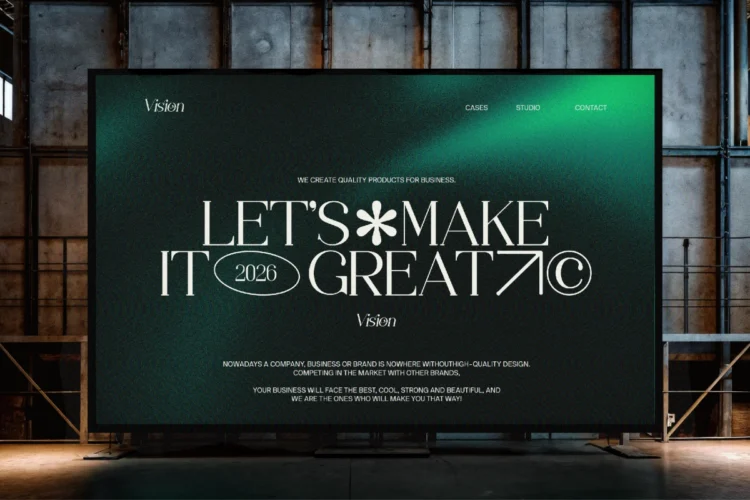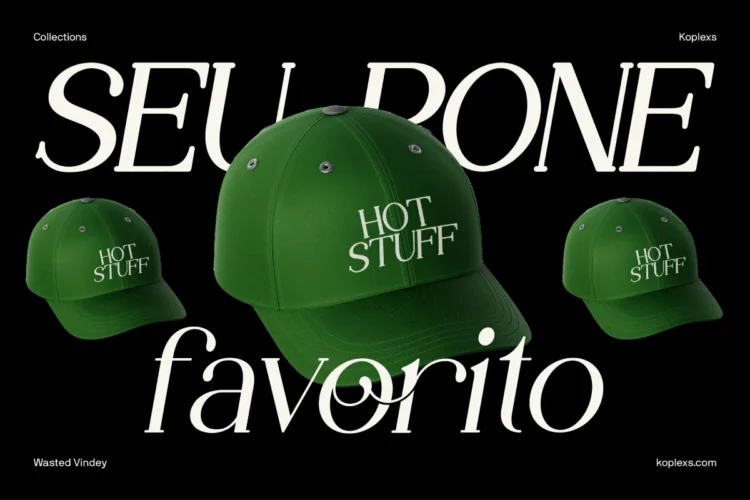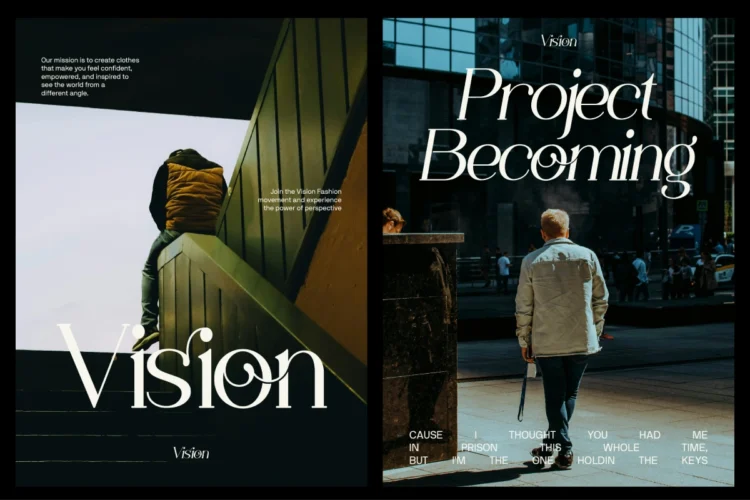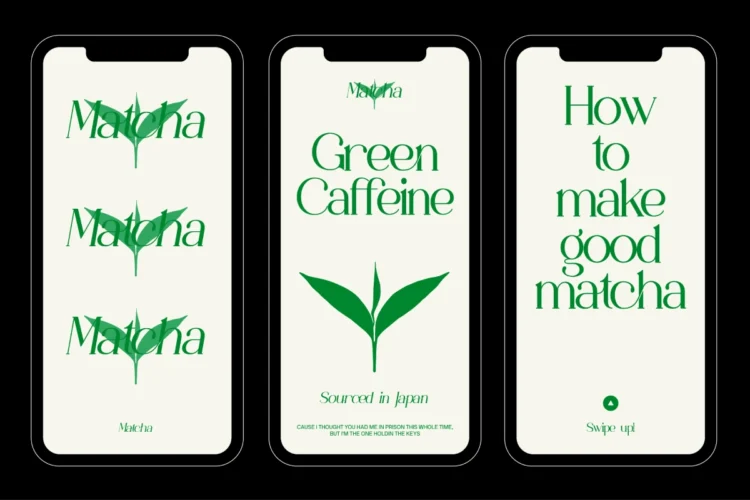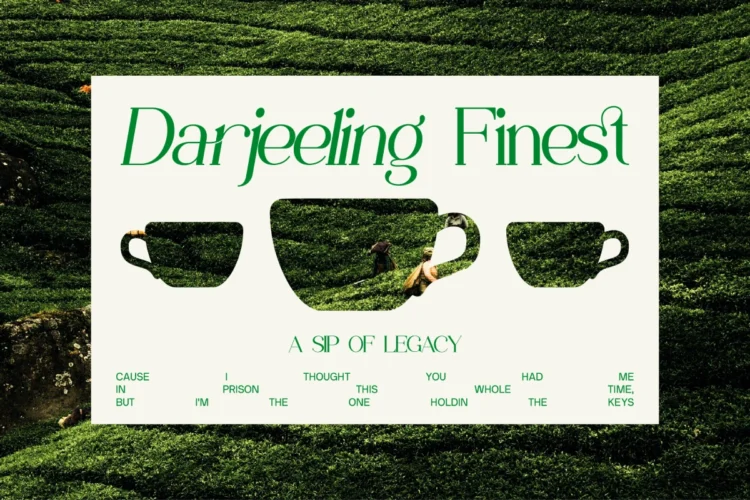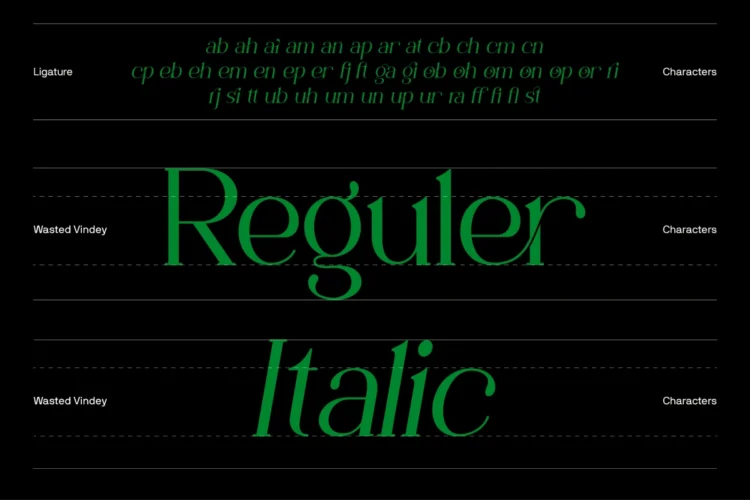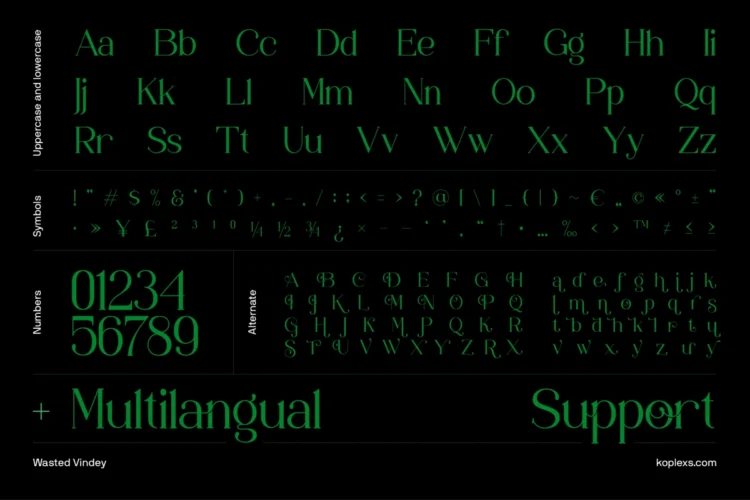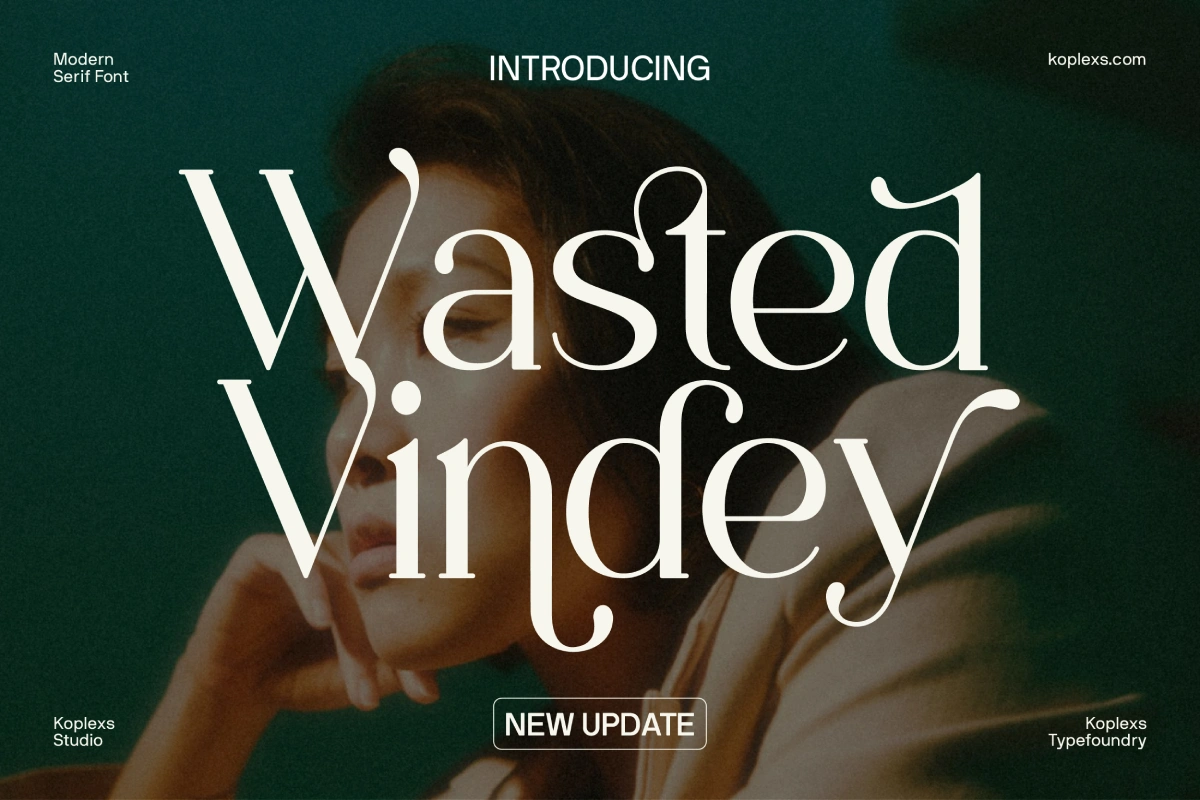
Wasted Vindey Font Modern Elegant Serif Font for Branding Logo Wedding Editorial Design
Wasted Vindey Font is a Serif font that combines modern font aesthetics with classic font elegance. Inspired by editorial layouts, luxury branding, and fashion magazines, this aesthetic font delivers a refined balance between bold character and elegant details. The overall look feels cool, classy, and premium, making it a goods font choice for designers who want a timeless yet contemporary typeface.
This modern serif typeface includes regular and italic styles with smooth curves, clean contrast, and decorative ligatures. As a branding font and logo font, Wasted Vindey Font brings a strong visual identity suitable for high-end projects. It works beautifully as a heading font, headline font, poster font, and cover font, especially for Magazine, Fashion, and Editorial design.
Wasted Vindey Font carries the personality of an elegant font and luxury font while remaining minimal and readable. The serif structure gives a classic font feeling, while the modern proportions create a fresh modern font impression. With Fat Serif and Bold Serif characteristics, this font stands out in titles and headlines without losing its classy and feminine tone.
Perfect for cosmetic font needs, beauty branding, boutique packaging, and elegant web font usage, this typeface also shines as a wedding font and invitation font. Its romantic curves and subtle decorative elements make it suitable for Love Font, Romantic Font, Valentines, Feminine Font, and Glamour Font concepts.
Wasted Vindey Font supports ligature font features, alternate font characters, and decorative details inspired by French, Chic, and Contemporary typography. It pairs well as a Font Duo with Sans Serif fonts and adapts easily for modern layouts. Whether used for Logo Font, Magazine Font, Vogue Font, New Yorker style editorial, or Voyage Font concepts, this typeface delivers a polished and luxurious result.
This serif typeface is ideal for branding, fashion editorials, wedding stationery, boutique identity, cosmetic packaging, posters, templates, and decorative typography projects. Its clean, stylish, and elegant appearance ensures high quality visual impact across print and digital media.
Wasted Vindey Font Usage Suitability :
- Branding and visual identity
- Logo design
- Wedding invitations and stationery
- Fashion and magazine editorials
- Cosmetic and beauty packaging
- Poster and cover design
- Boutique and luxury branding
- Social media and web design
- Templates and decorative typography
This Serif Font balances Sans Serif compatibility when paired as a Font Duo, making it versatile for modern layouts. With its Minimal, Clean, Stylish, and Luxurious appearance, Wasted Vindey Font delivers Quality, Pretty Fonts, and Beautiful typography for designers who demand excellence.